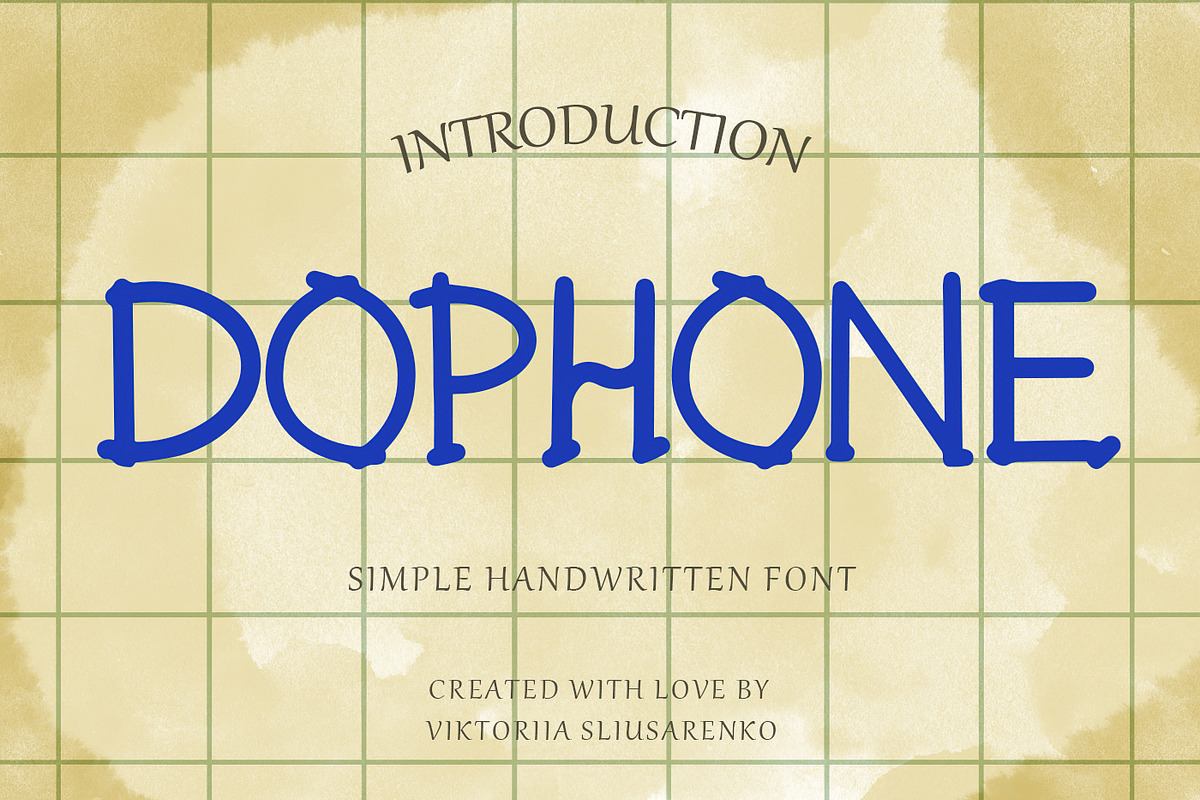
DOPHONE Simple Handwritten Font is a clean, charming typeface that captures the essence of a natural handwritten style. Perfect for personal projects, invitations, and casual branding, DOPHONE brings a warm, friendly touch to your designs. Download DOPHONE Simple Handwritten Font Free Download today and infuse your work with a personal, authentic feel!